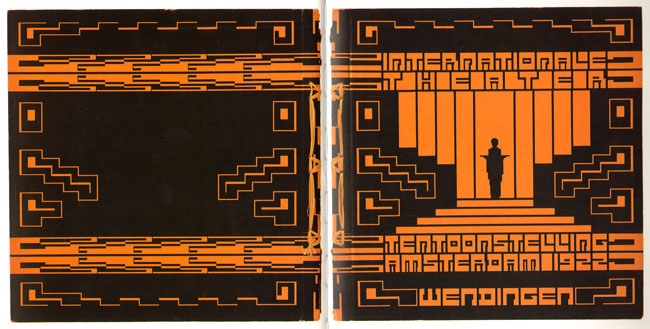
Original brochure as was designed by "Hendrik Wijdeveld".
1922? That's way ahead of its time! Very cool. The left side of C and G seem a bit too thick.
I actually tried making my own version of this, as well.
Along side the Gamma.
Abandoned because of design difficulties.
@Jack West: Maybe we should co-op on something like this once.. :)
Wouldn't that be nice?
What would it be, though?
So many options, but I think we should do some classic modernist / avant garde style alphabet. Ill dig through some books tonight to get us something cool..